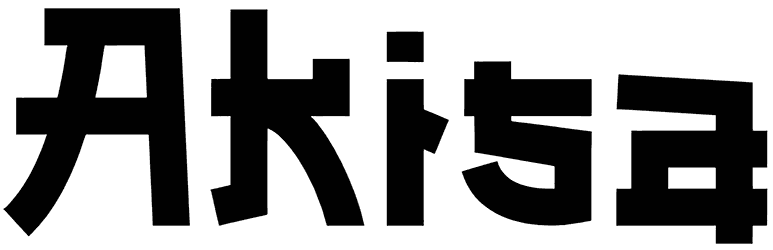
Akisa Font
Do you need to give a distinct and captivating vibe to your words and catch a lot of attention? Use this Japanese font with its unique, modern, and bold style and make it come true. Akisa doesn’t cover numbers and most punctuation marks, but can still be a perfect pickup for many projects, such as posters, headlines, games, and whatnot.